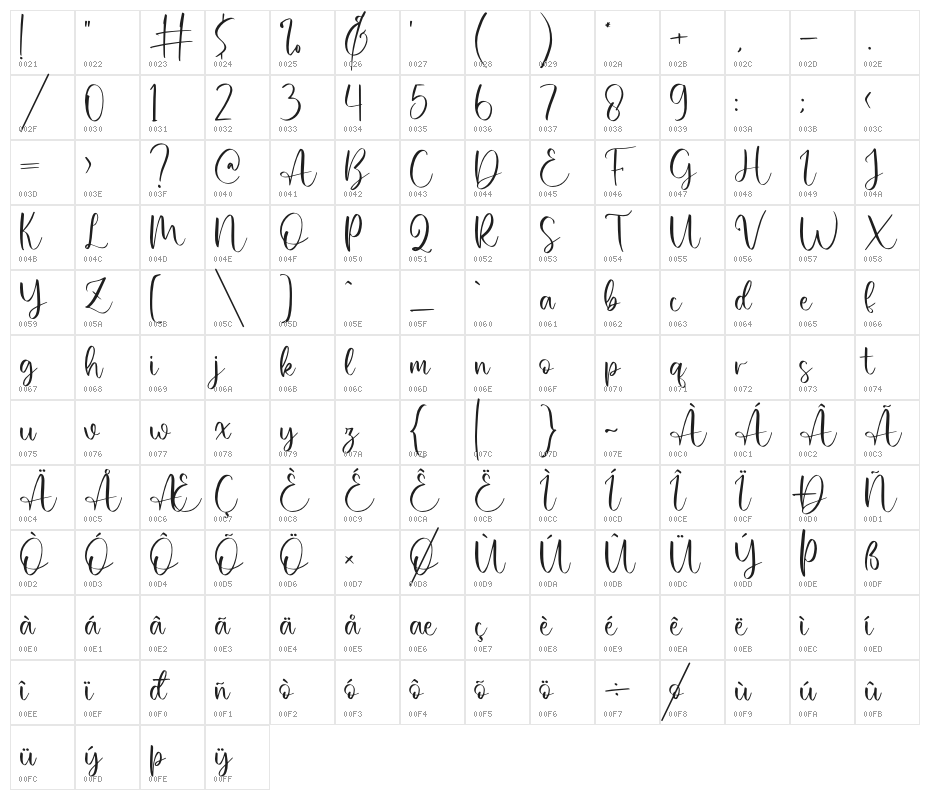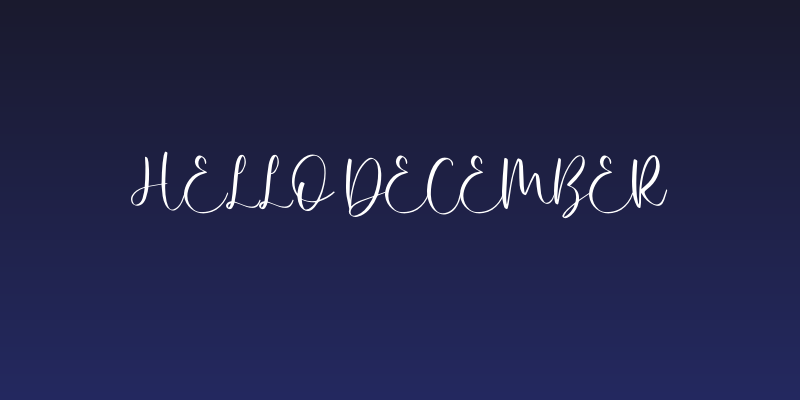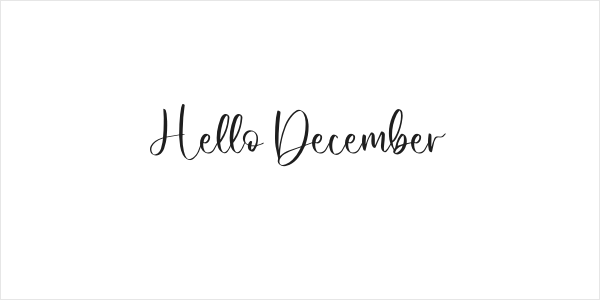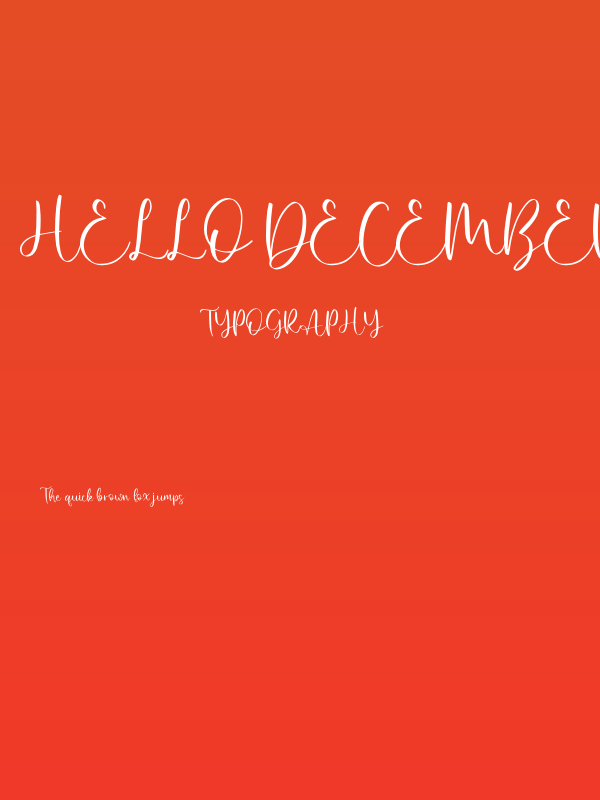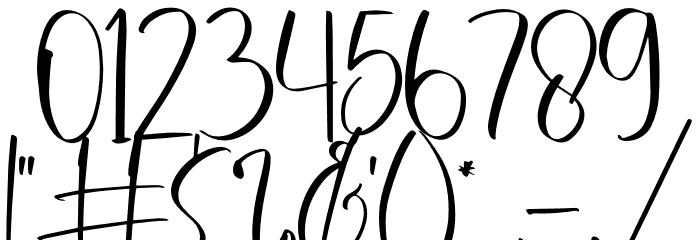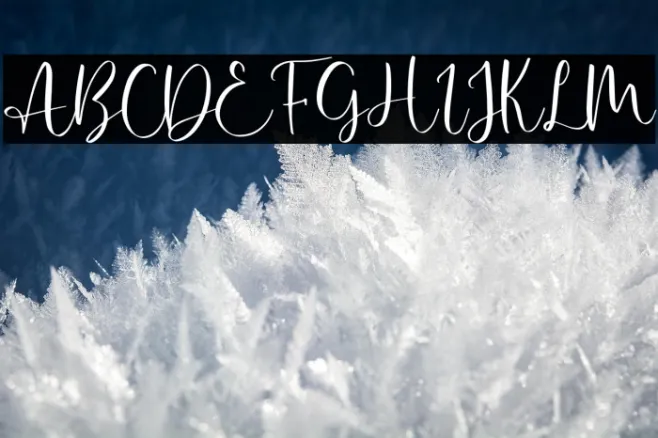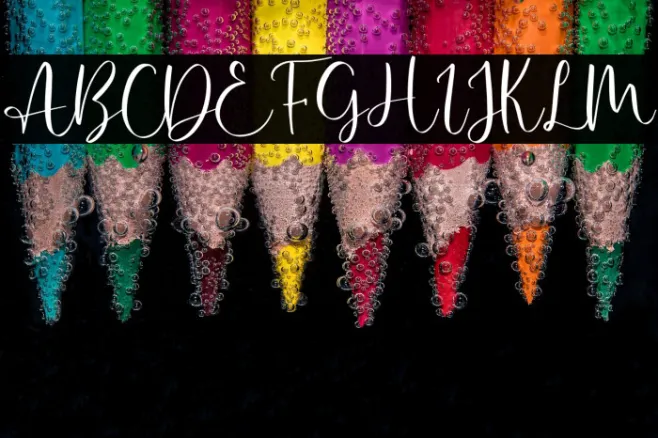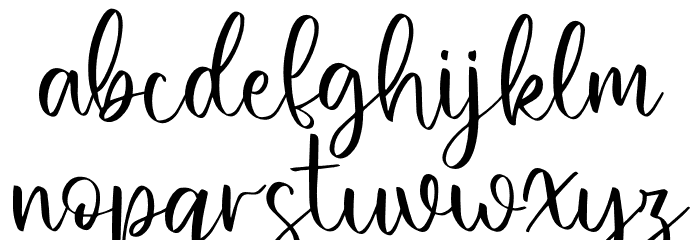
Hello December Font
Hello December Description
This font features a playful and elegant script style with a handwritten appearance. The uppercase letters are tall and slightly slanted, giving a sense of movement and fluidity. The lowercase letters are more rounded and connected, enhancing the cursive feel. The numbers are consistent with the script style, maintaining the same playful and flowing characteristics. Special characters are creatively integrated, matching the overall aesthetic. The font's strokes vary in thickness, providing a dynamic contrast that adds to its charm. This font is perfect for projects that require a personal and artistic touch.